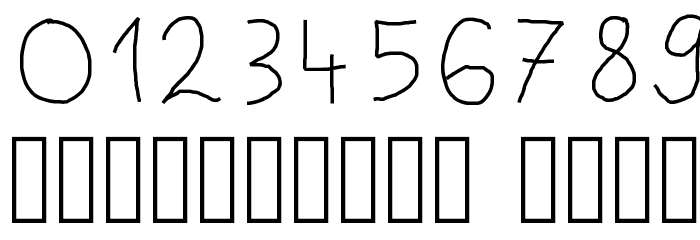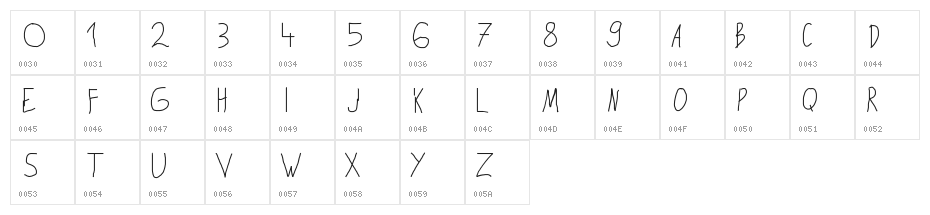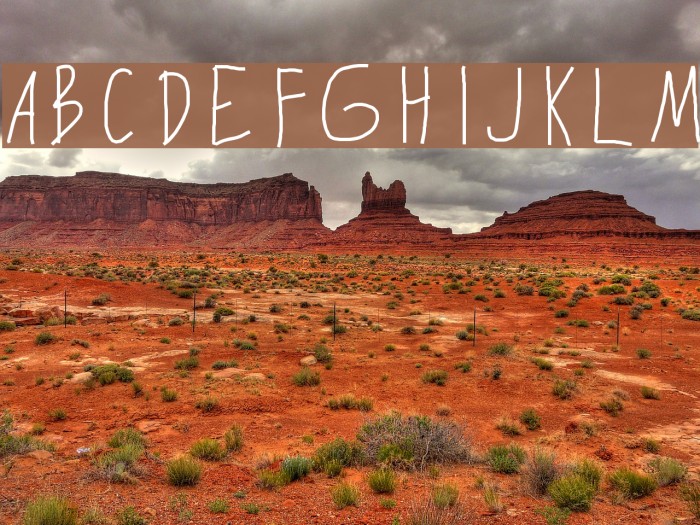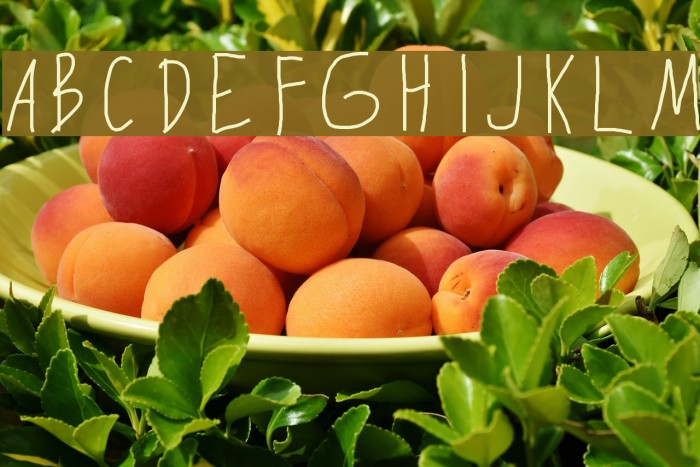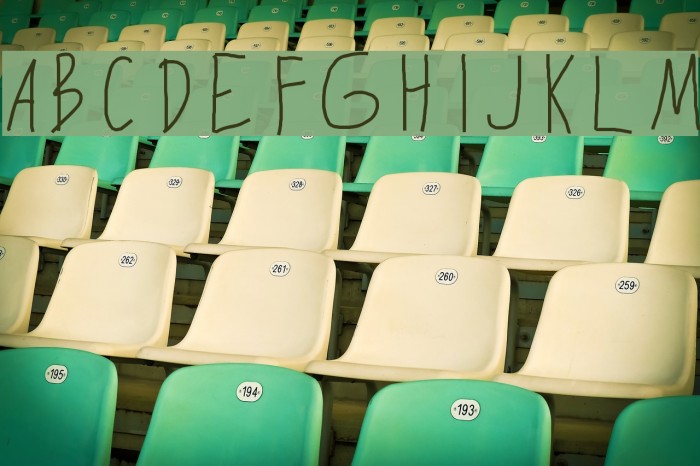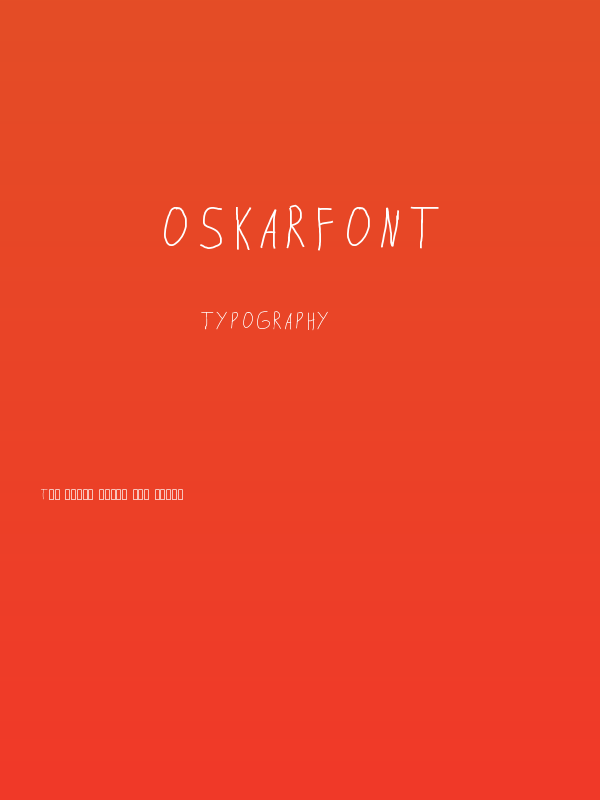
OskarFont Font
OskarFont Description
This font features a playful and casual handwritten style, characterized by its irregular strokes and slightly uneven baseline. The letters have a natural, free-flowing appearance, giving off a relaxed and informal vibe. The uppercase letters are tall and slender, while the lowercase letters maintain a consistent height, adding to the font's approachable nature. The numerals are rounded and maintain the same playful style as the letters. This font is ideal for projects that require a personal touch, such as greeting cards, invitations, or casual branding.
| Use Case | Headlines, Informal text, Personal projects |
| Proposed Projects | Ideal for greeting cards, invitations, casual branding, and personal projects. |